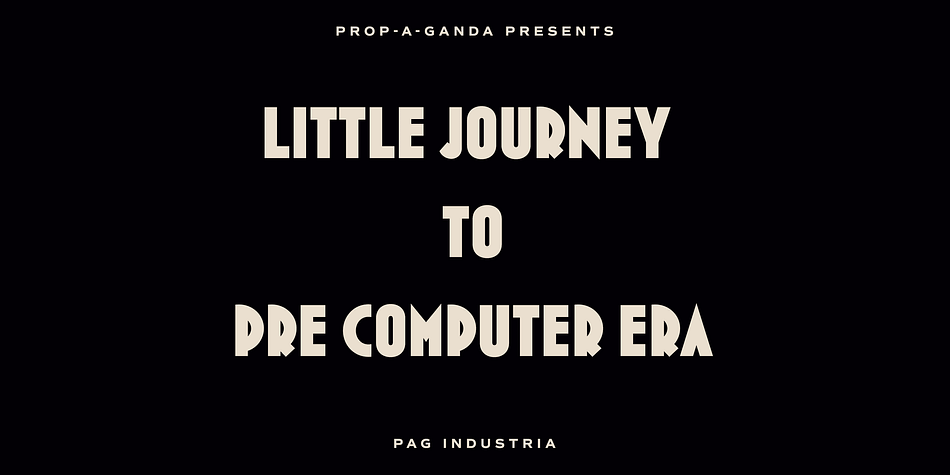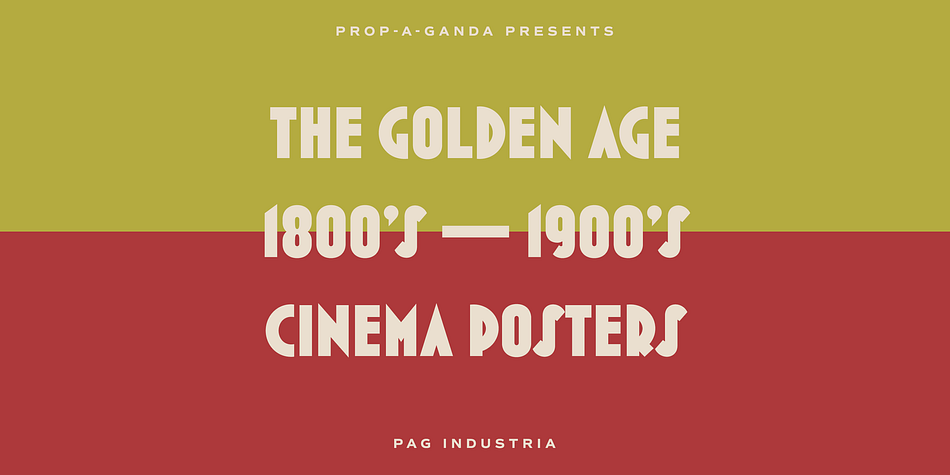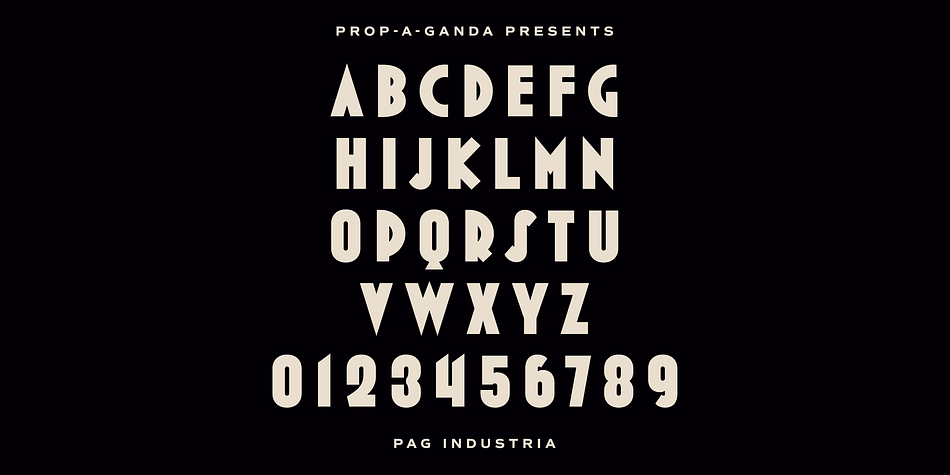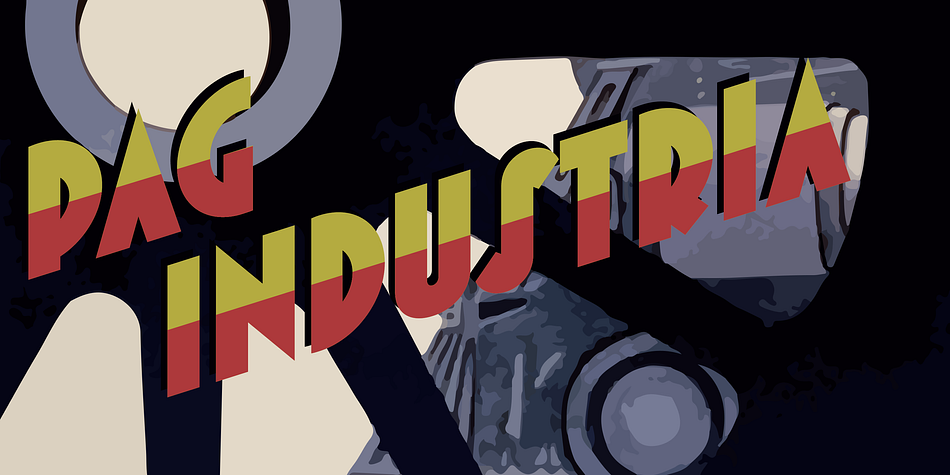
PAG Industria is a retro font published by Dharma Type.
Prop-a-ganda(PAG) offers retro-flavored fonts inspired by lettering on retro propaganda posters, retro advertising posters, retro packages all the world over. This is perfect font for your retrospective project.
PAG Industria is one of the simplest font in Prop-a-ganda series. In spite of its simple letter form, the bold stroke is very powerful and sophisticated. This font leaves an impact even just a few words.